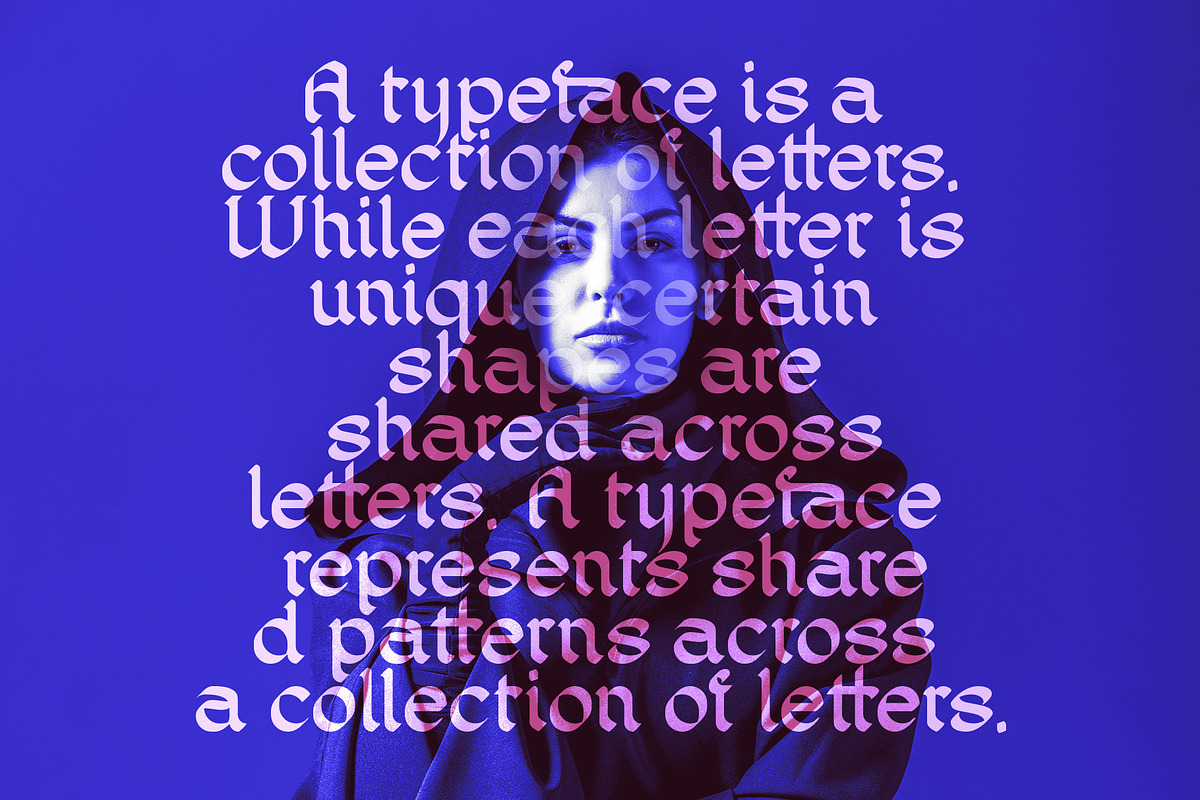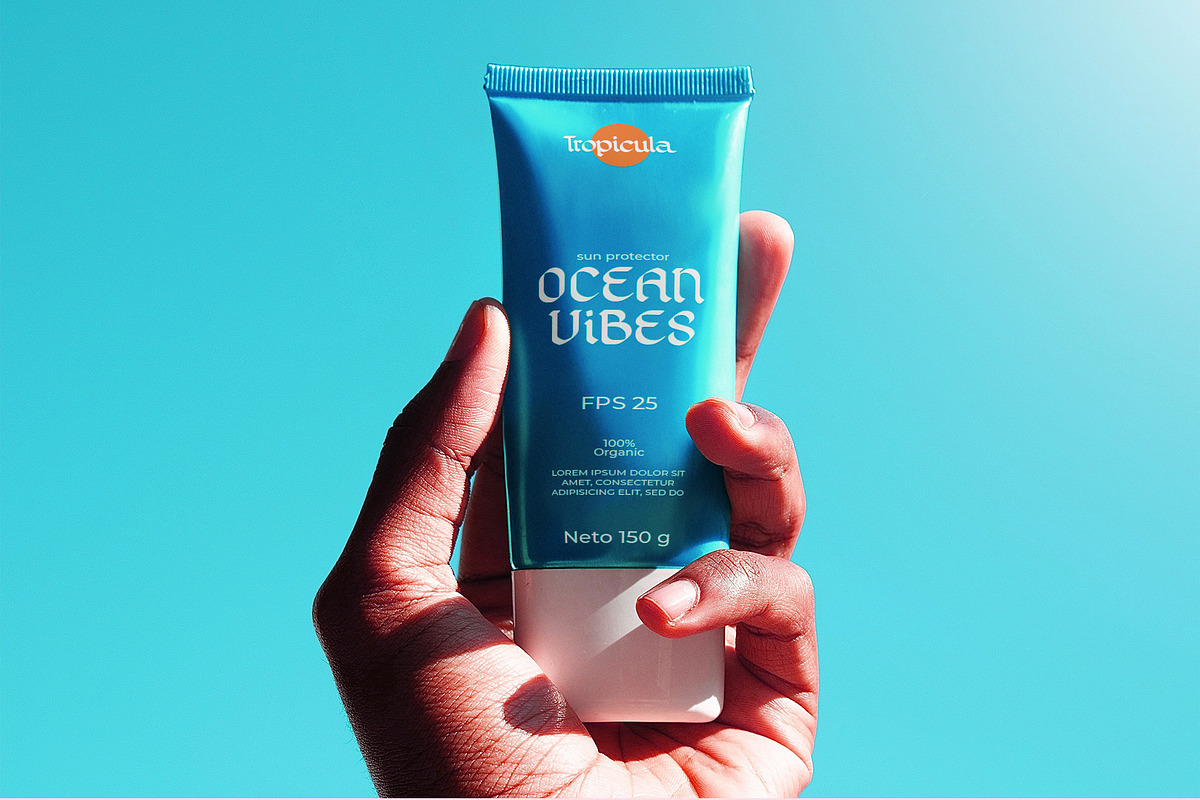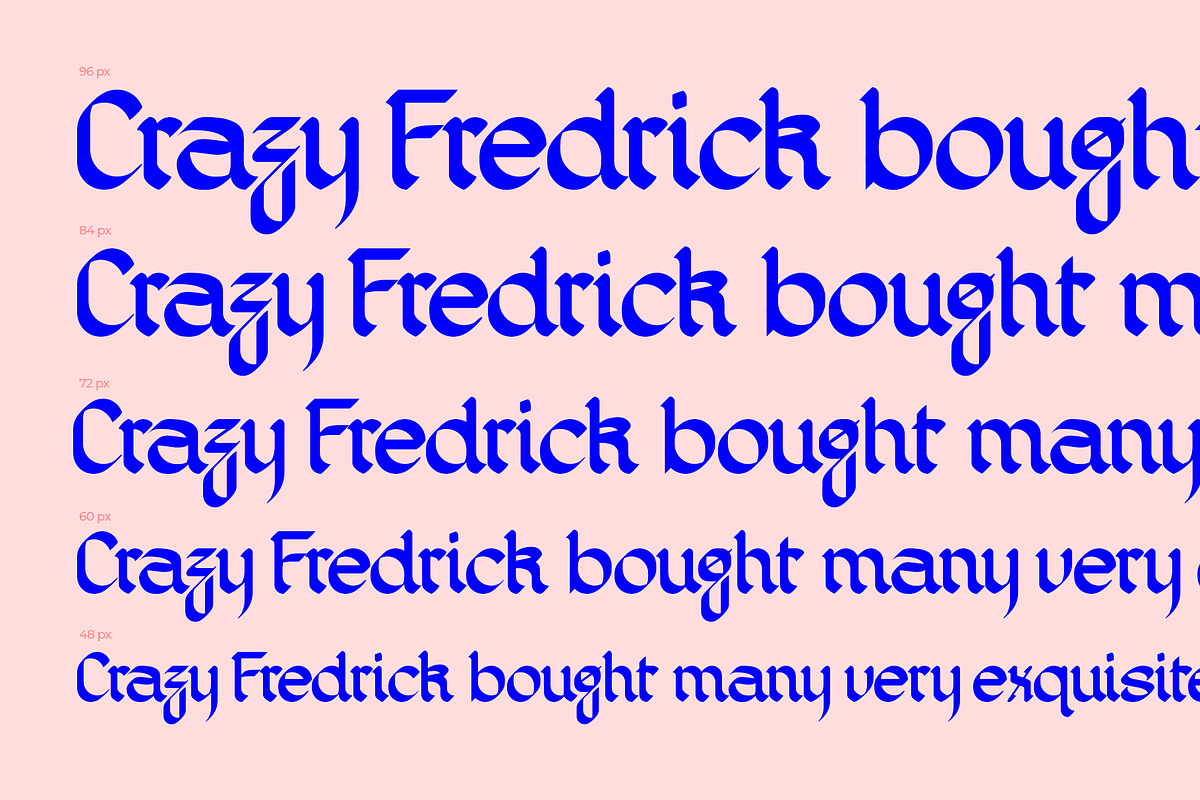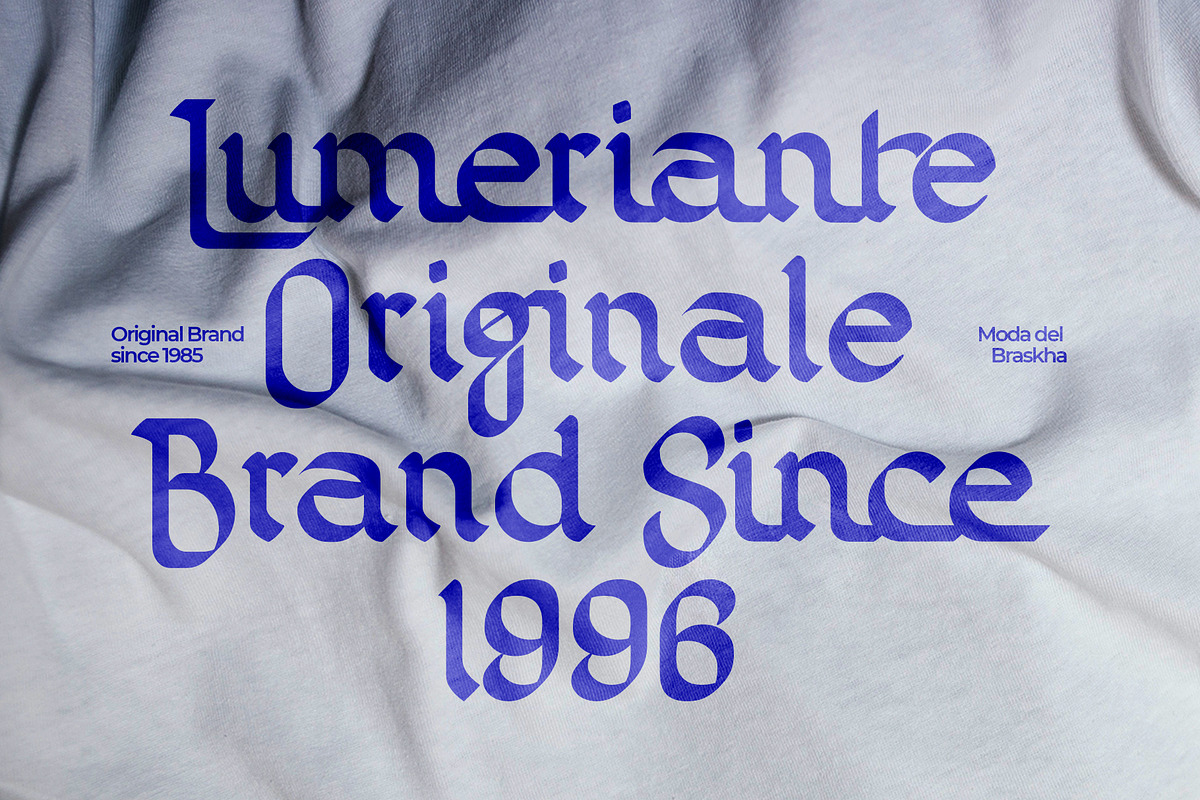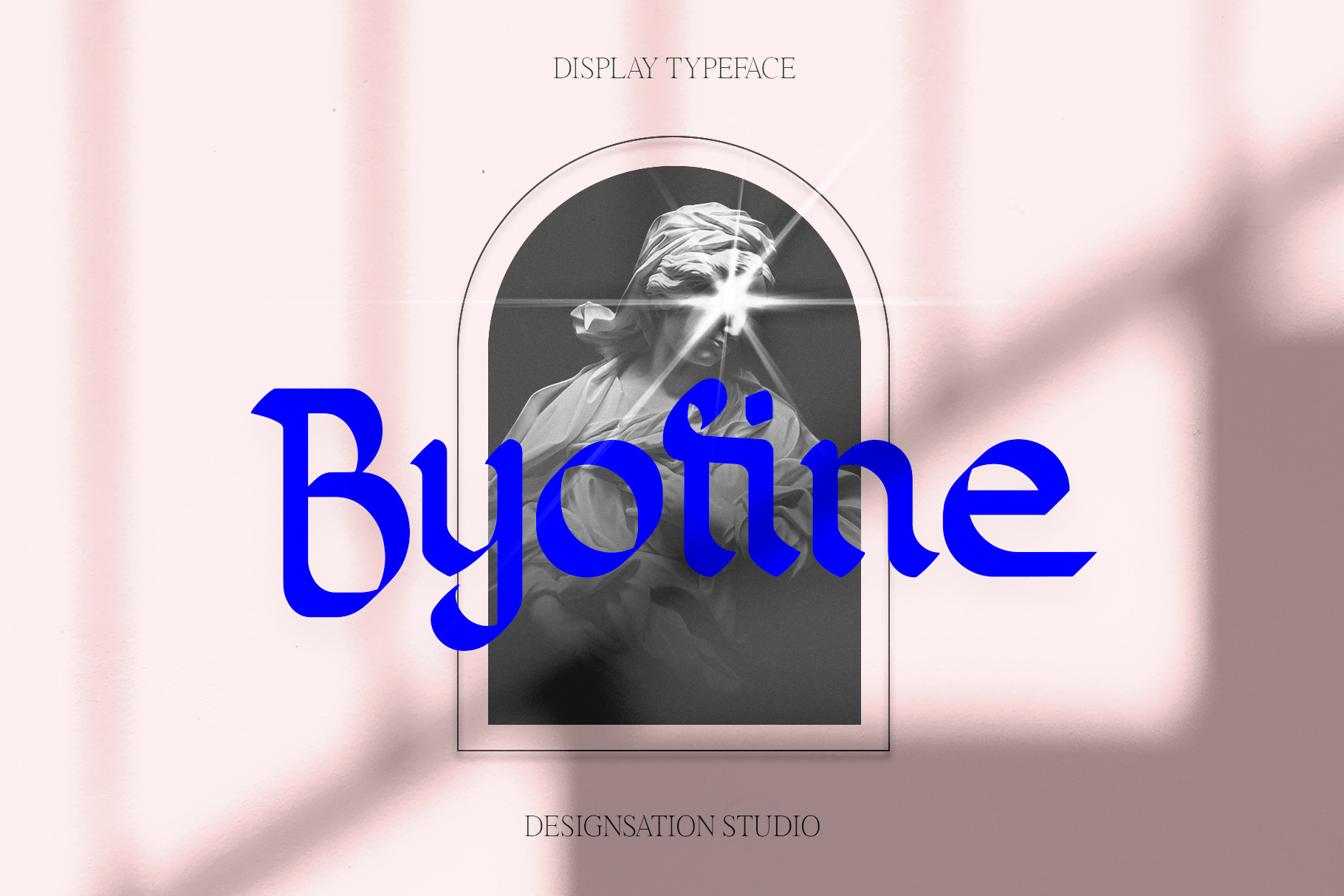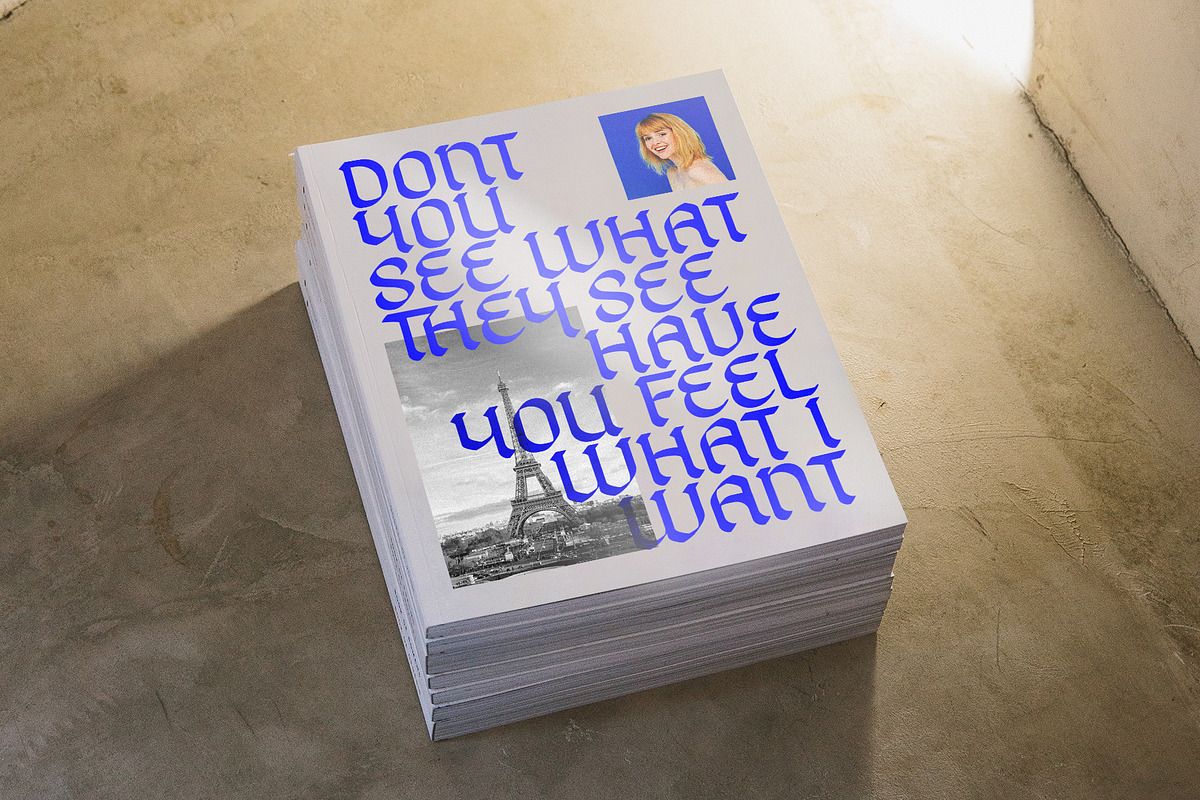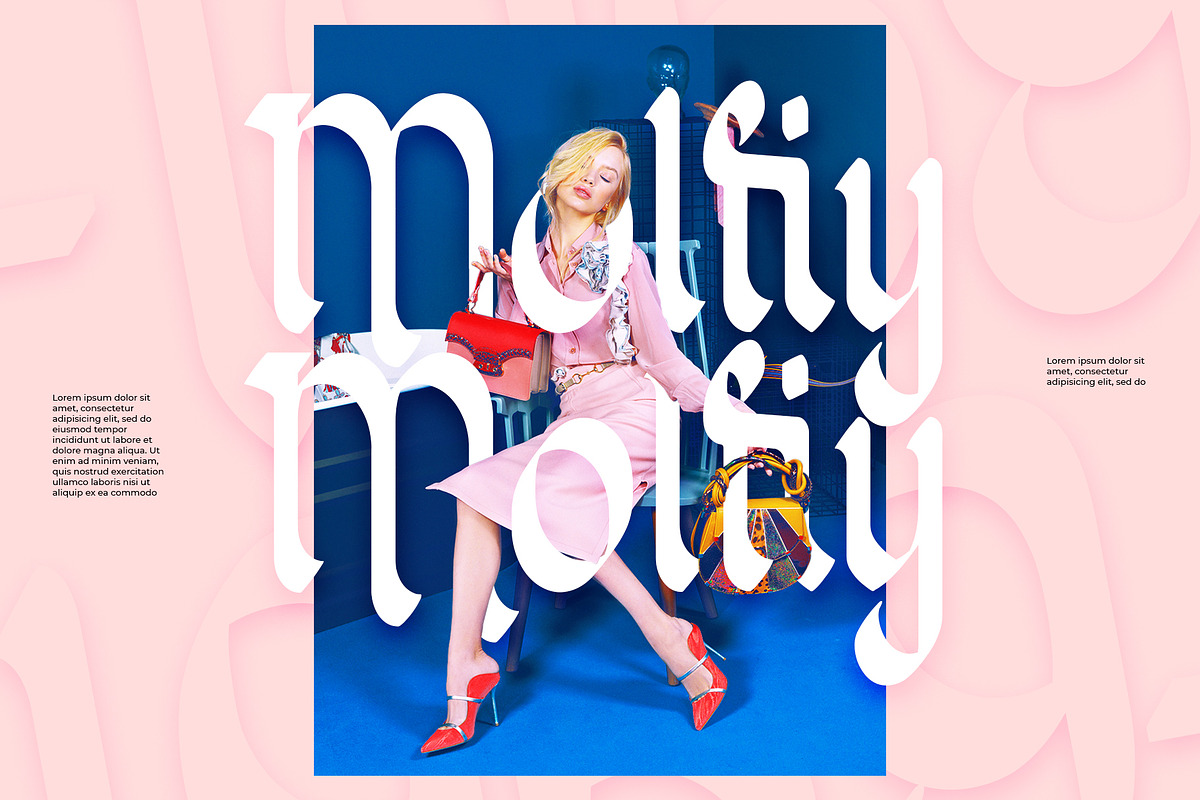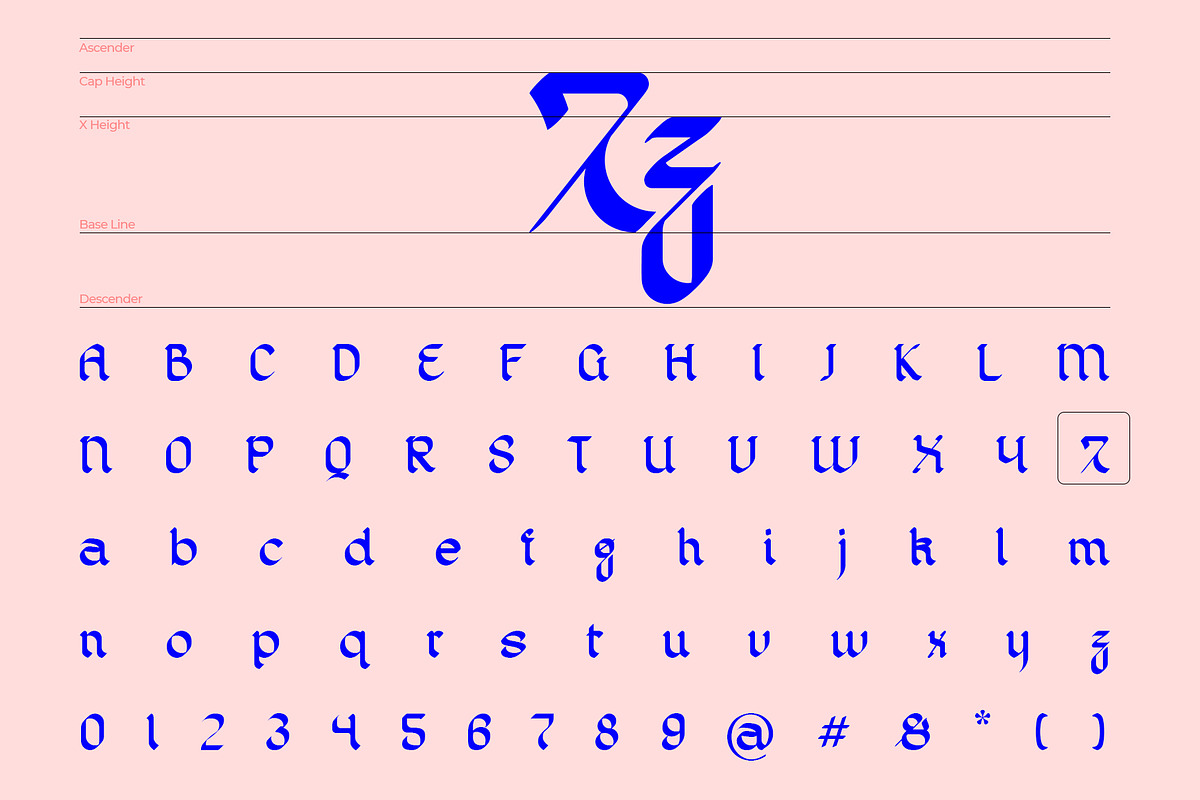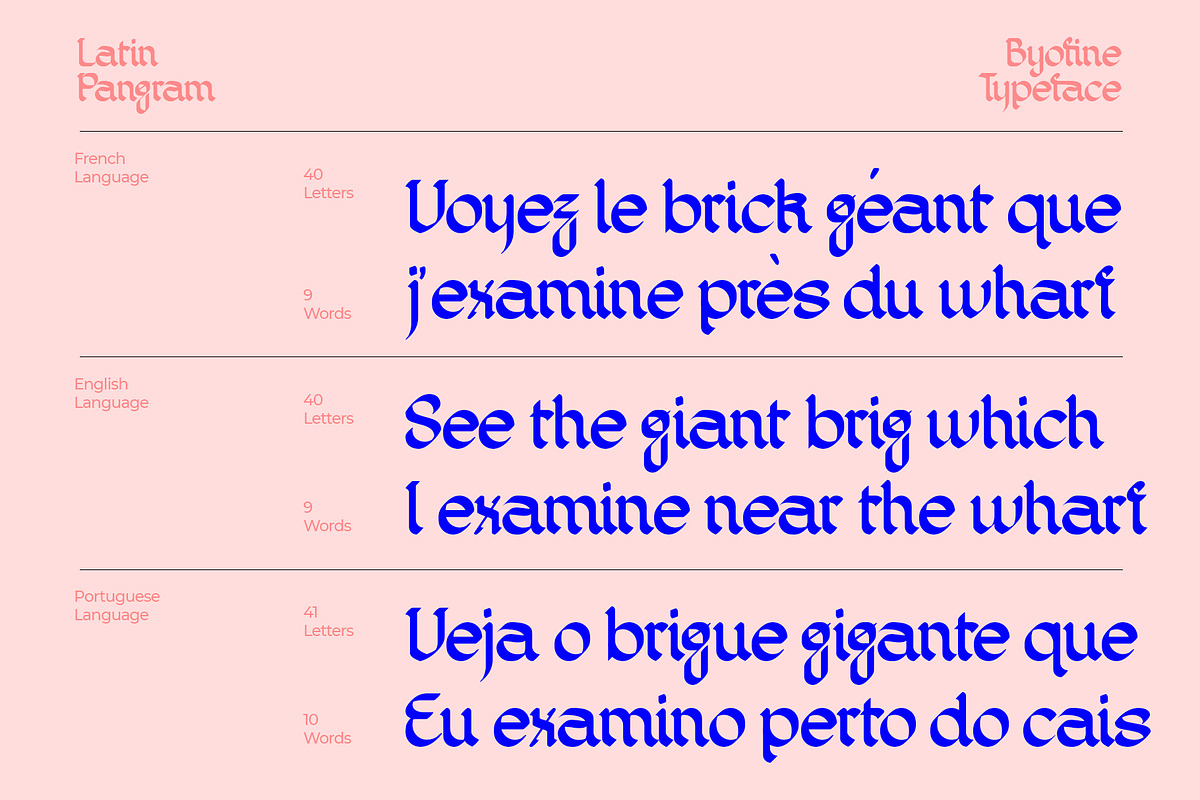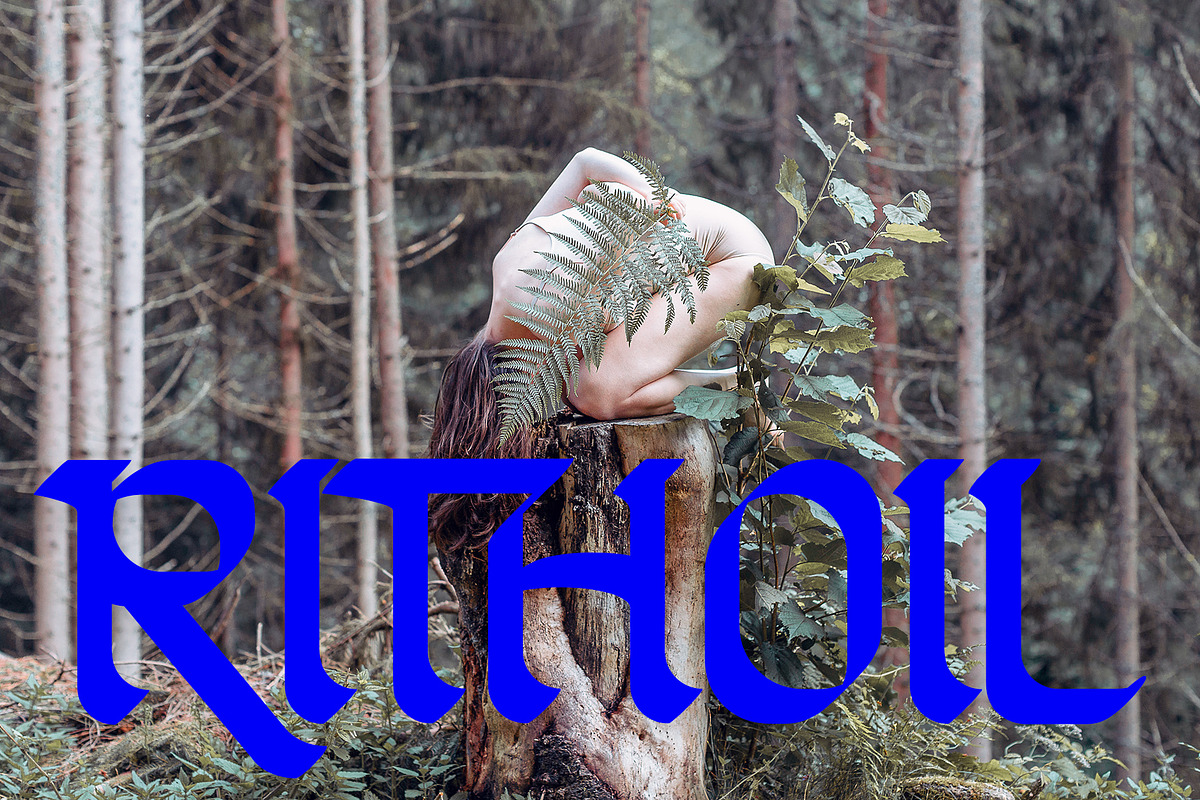
Byofine Gothic Display Typeface
Byofine is a typeface made with some references from Arabic script which has dynamic indentations in the legs. Adapting several ancient Gothic fonts and then adjusting them with imagination and typographic references and modern experimental typefaces.